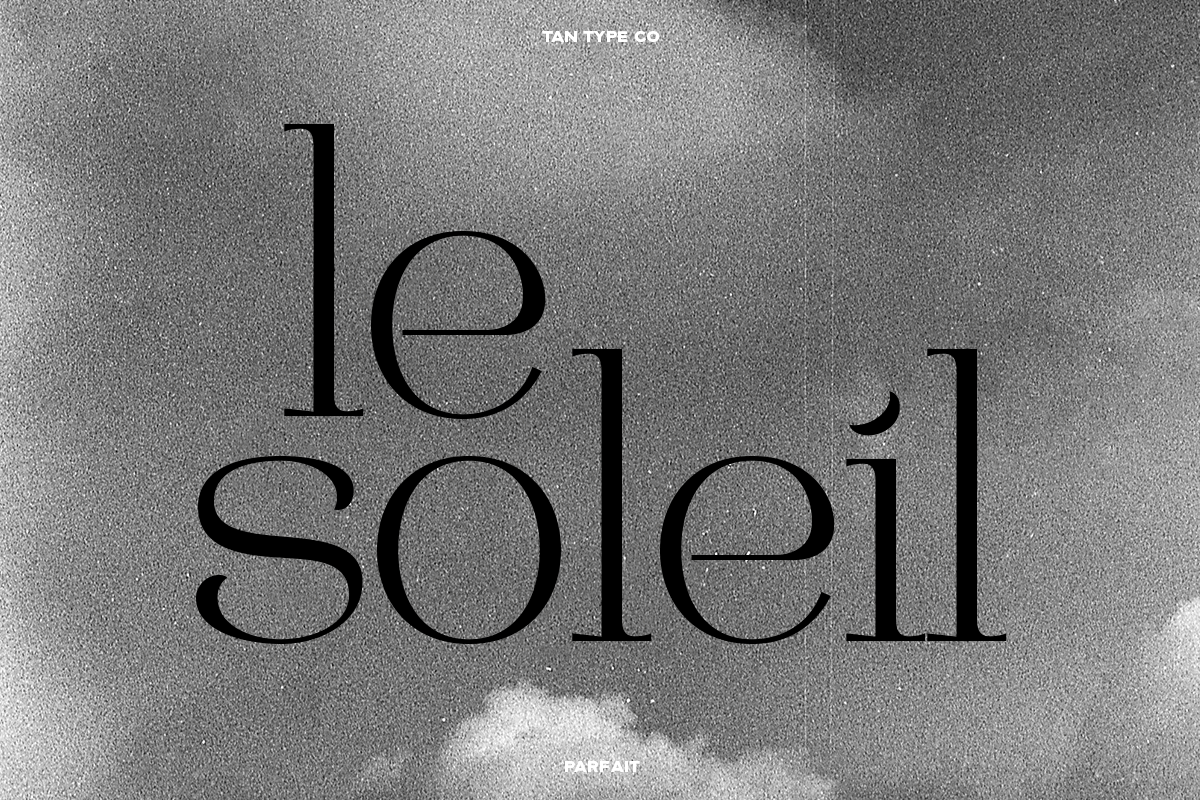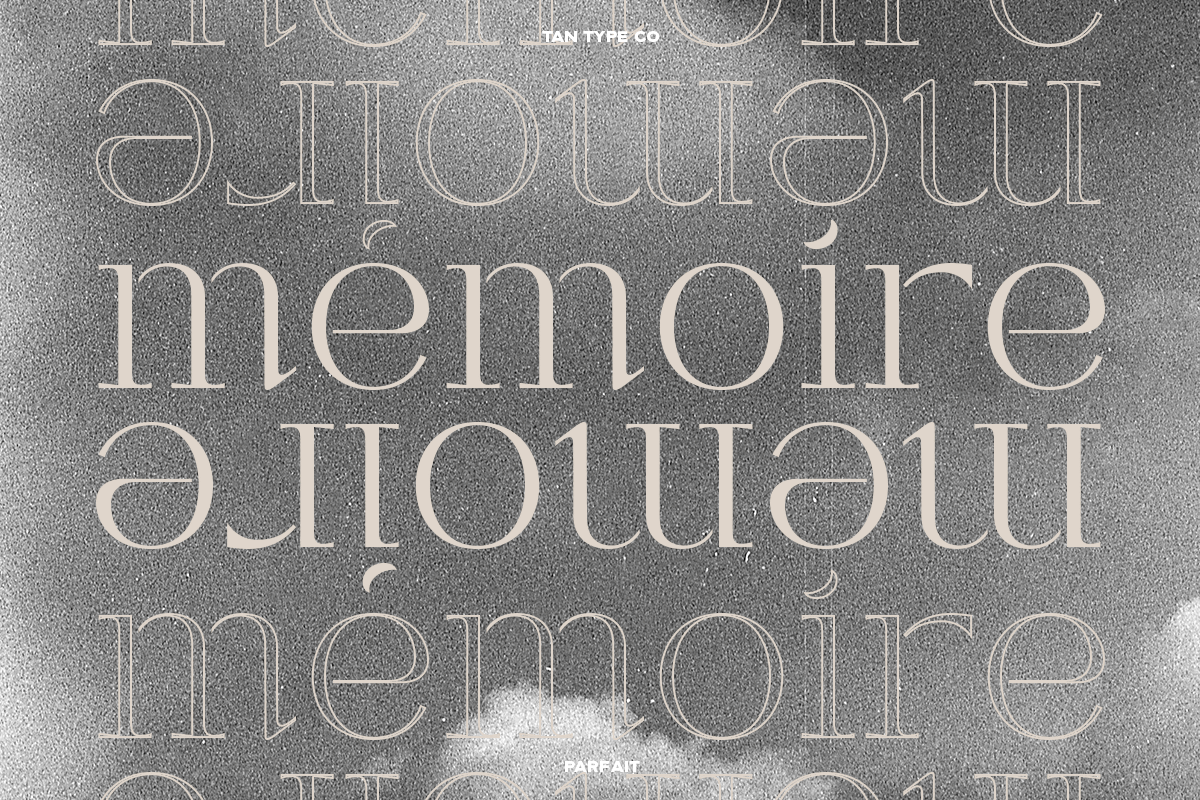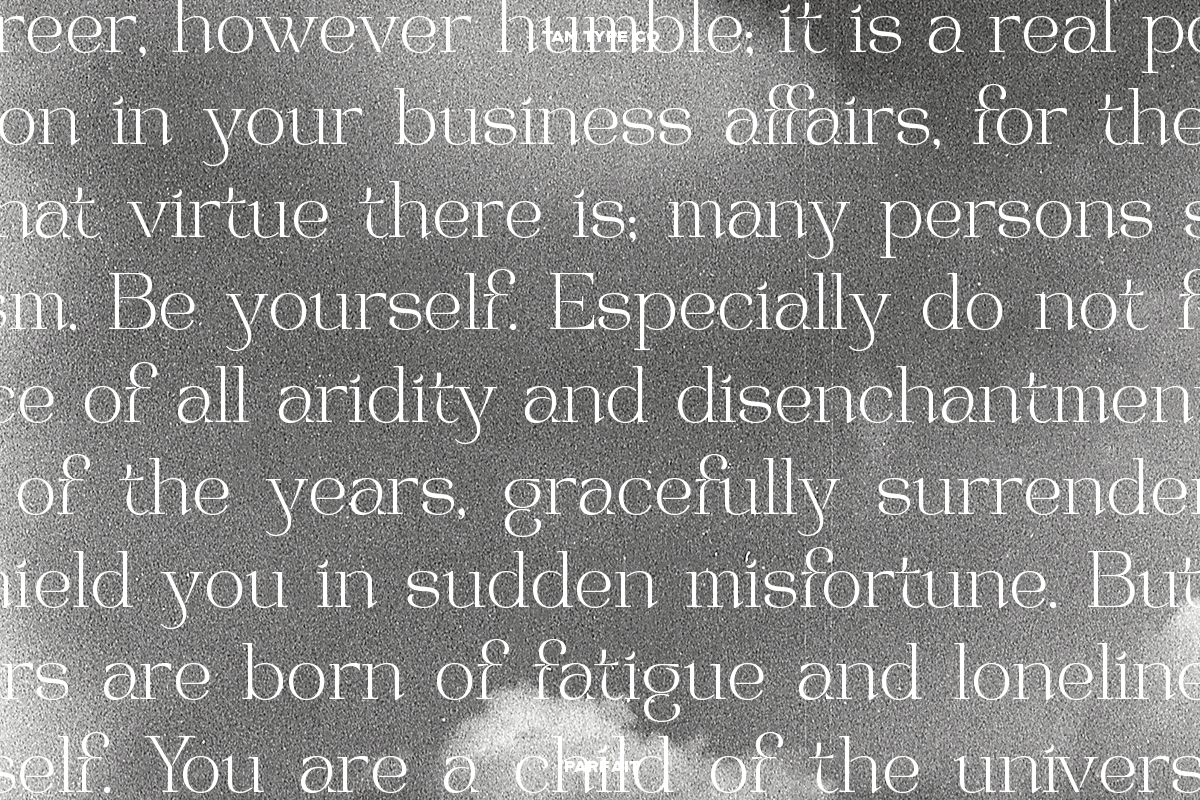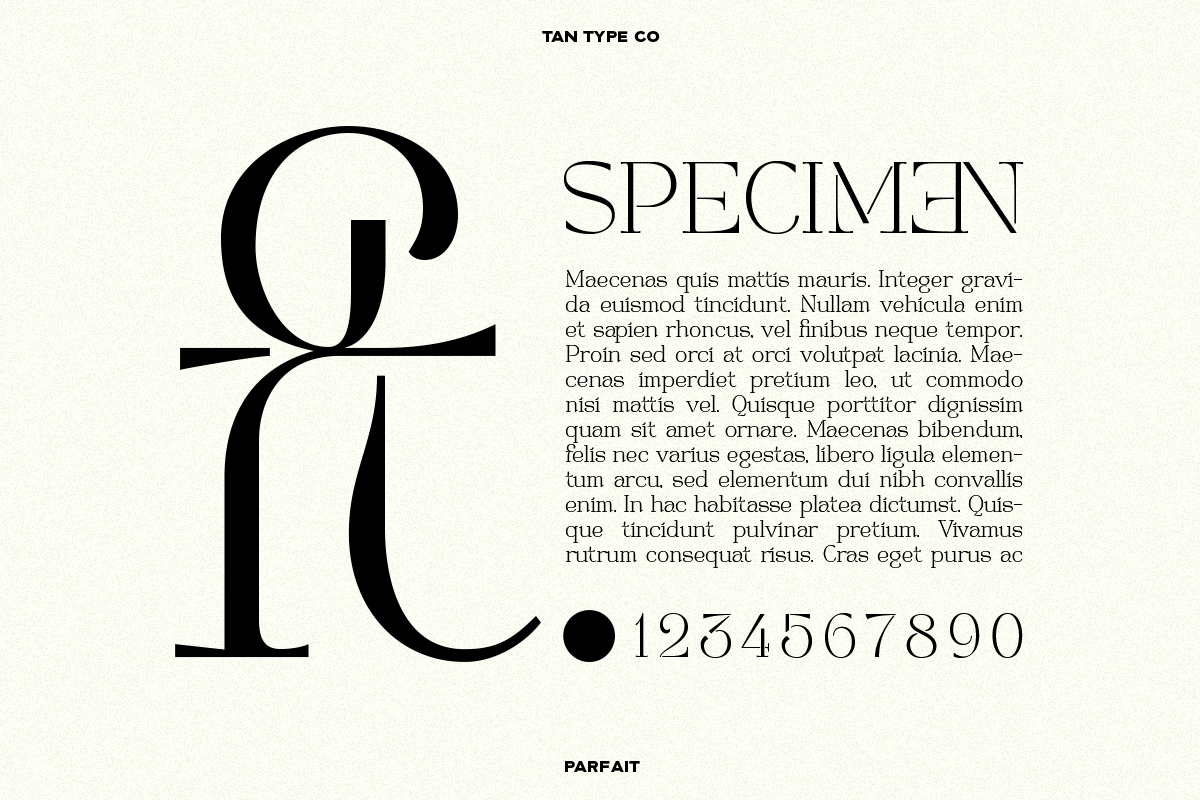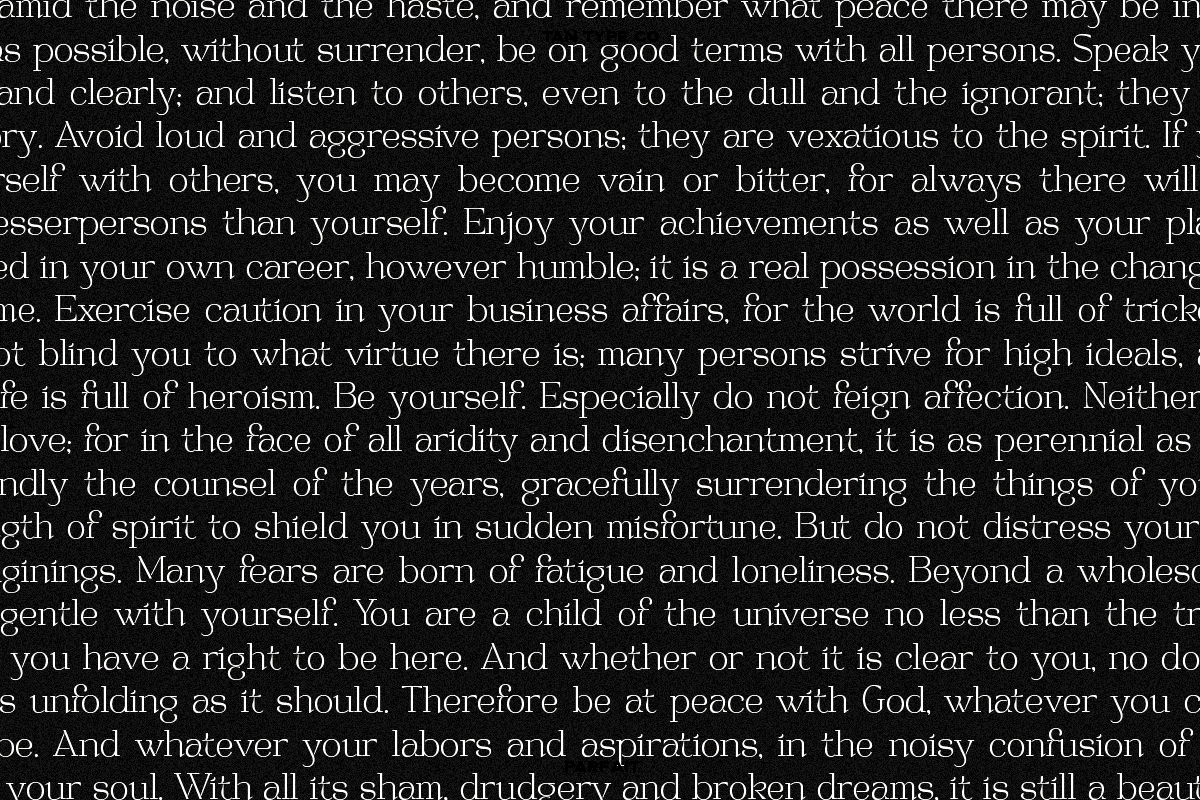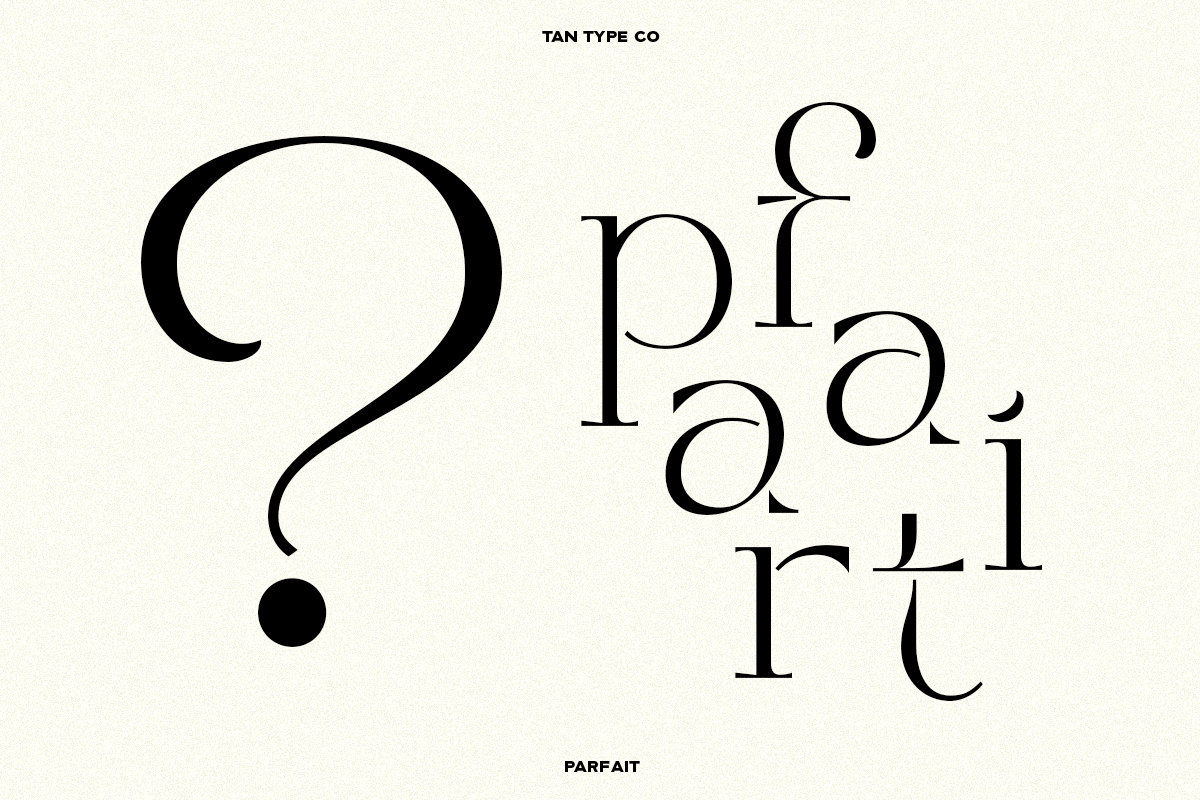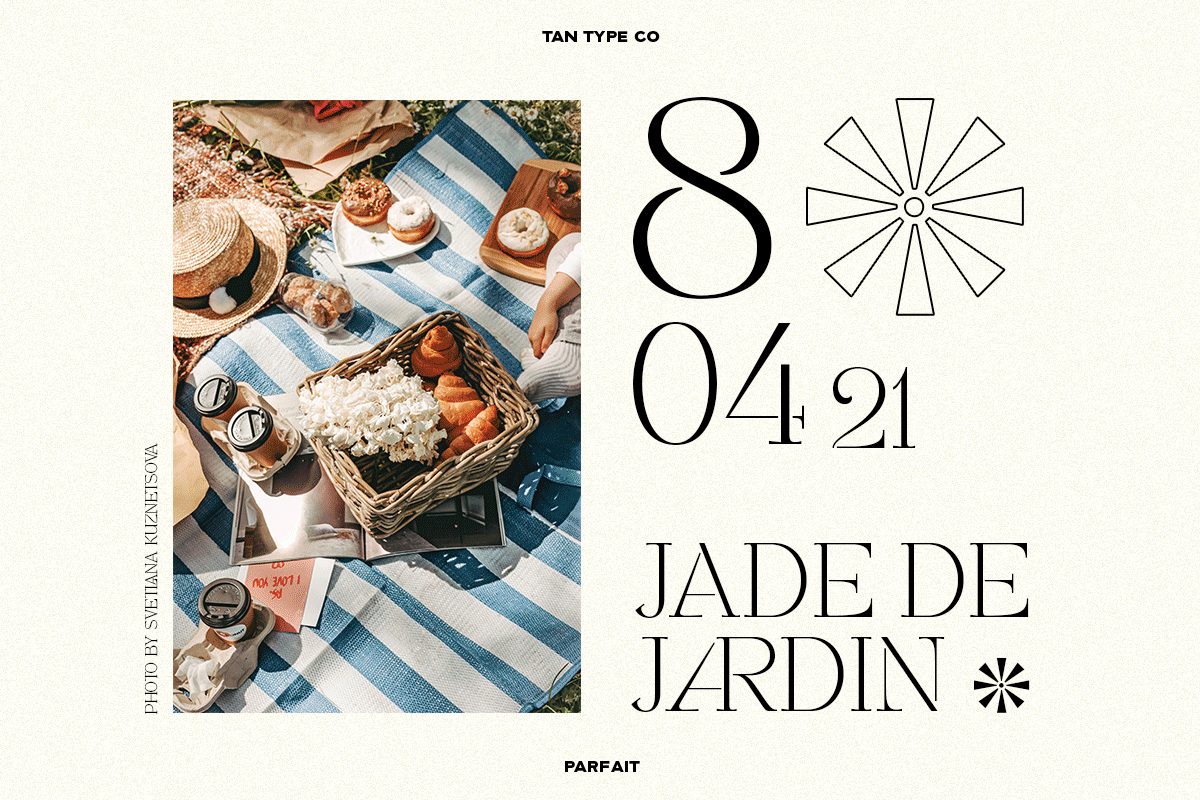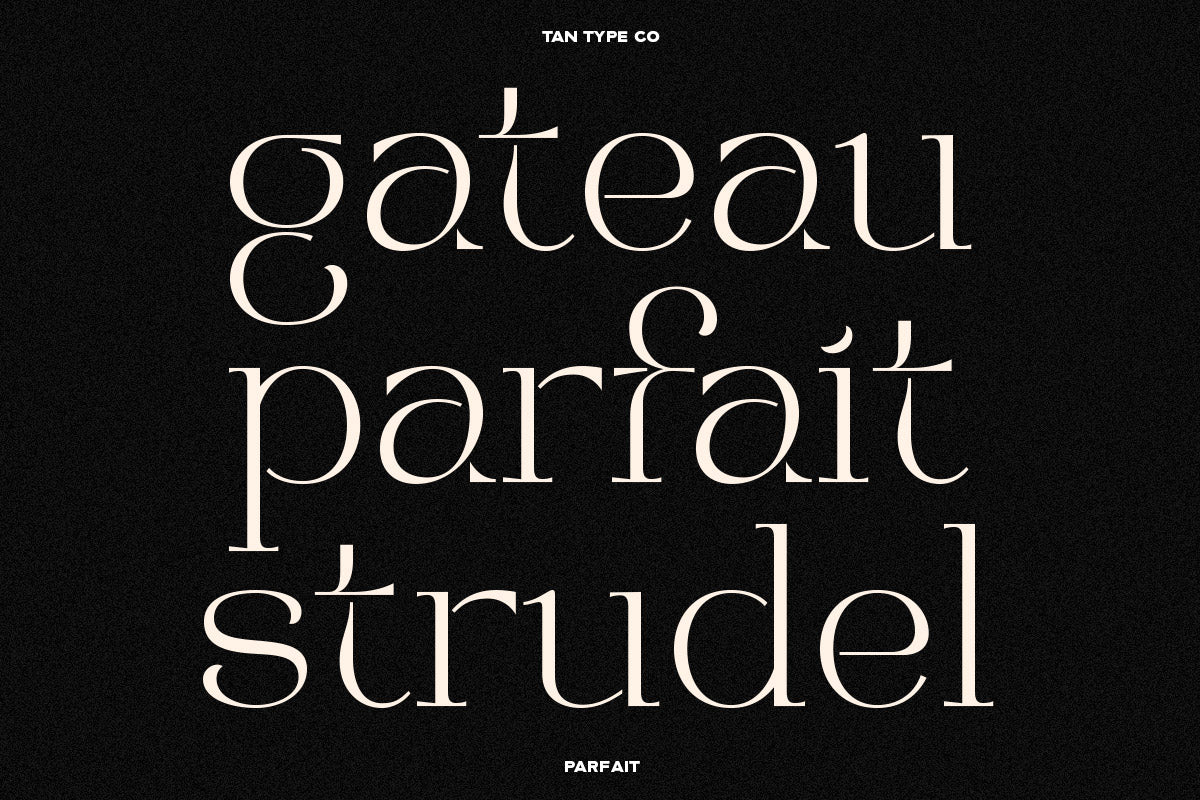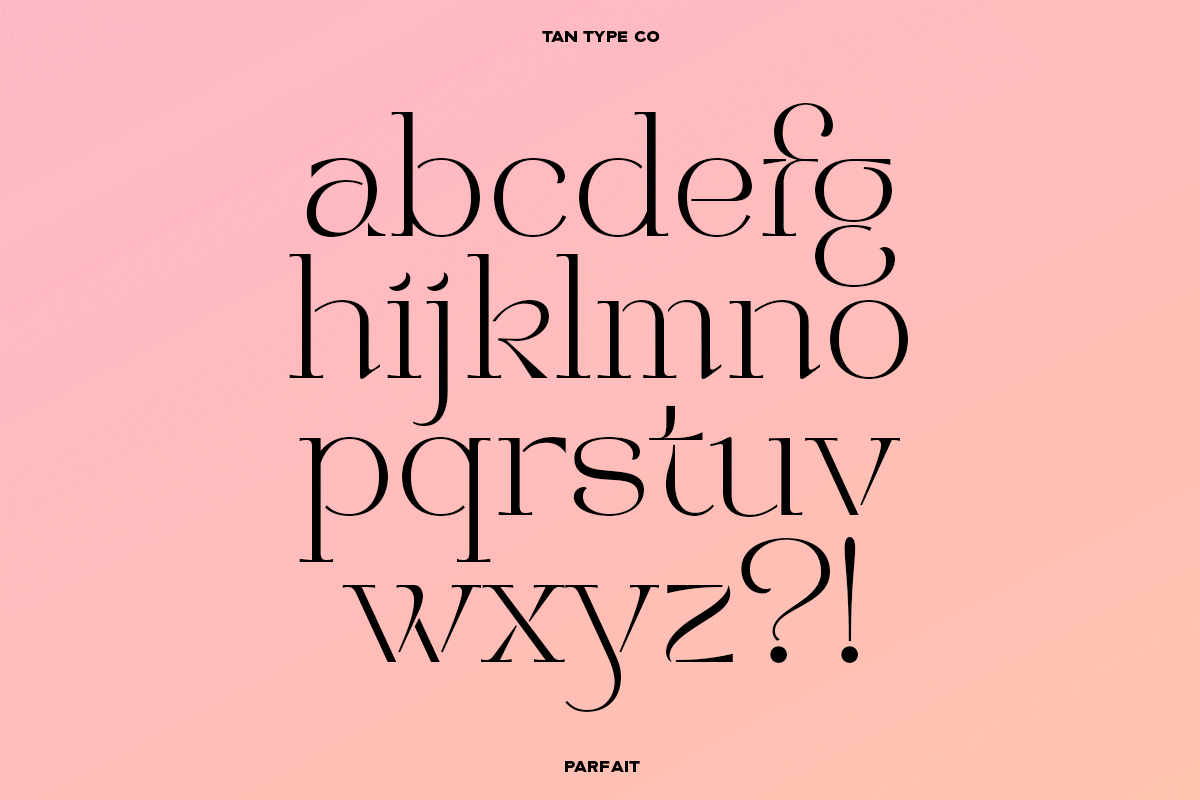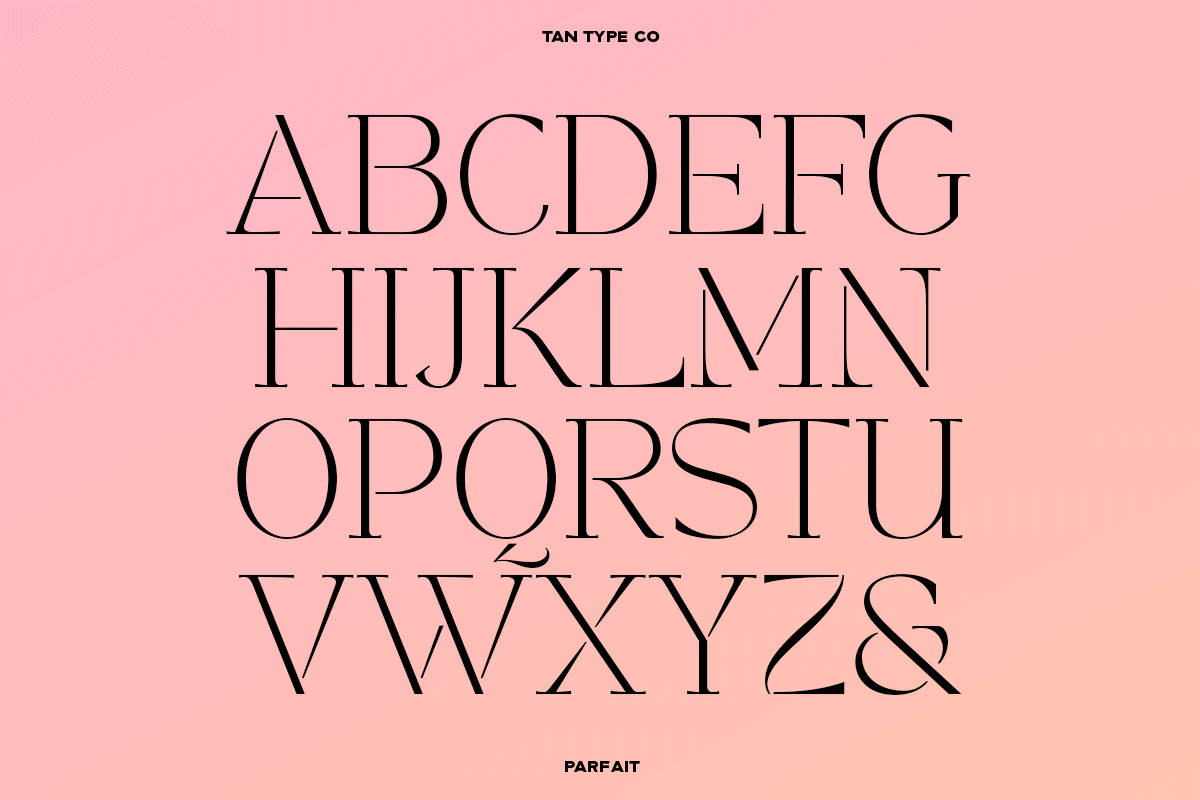
Parfait is a whimsical stencil serif typeface that balances delicate elegance with artistic flair. Featuring airy cuts and refined curves, Parfait brings a dreamy, fairy-tale charm to your designs while maintaining modern sophistication. Ideal for editorial layouts, boutique branding, packaging, and whimsical illustrations, this font adds a sprinkle of magic and personality to any project.